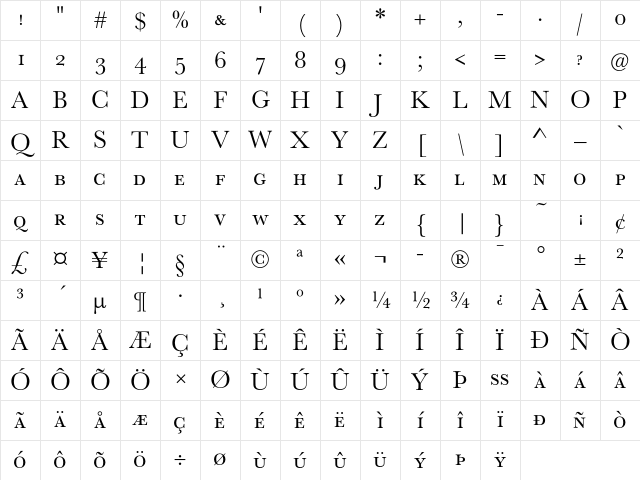
RoBaskerville Book SC
Style: Book SC
Foundry: TypeBank Co., Ltd.
Designer: URW++
RoBaskerville Family
Design Context for RoBaskerville
RoBaskerville is a composed and adaptable typeface that performs quietly and consistently across a wide range of design contexts.
Who designed the RoBaskerville Book SC font?